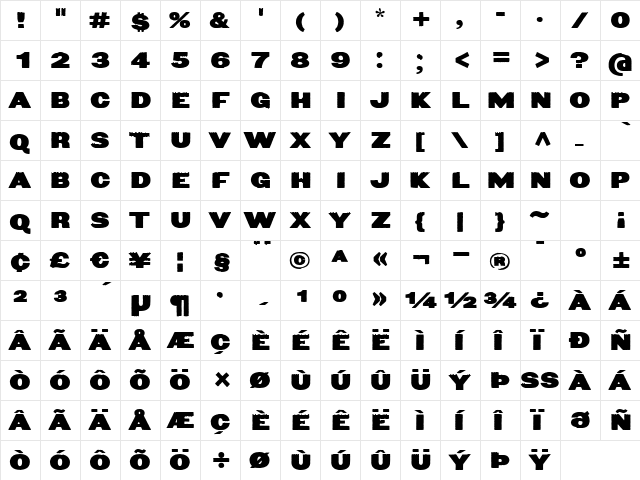
DenimBlack Regular
Design Context for DenimBlack Typeface
DenimBlack is a composed and adaptable typeface that performs quietly and consistently across a wide range of design contexts.